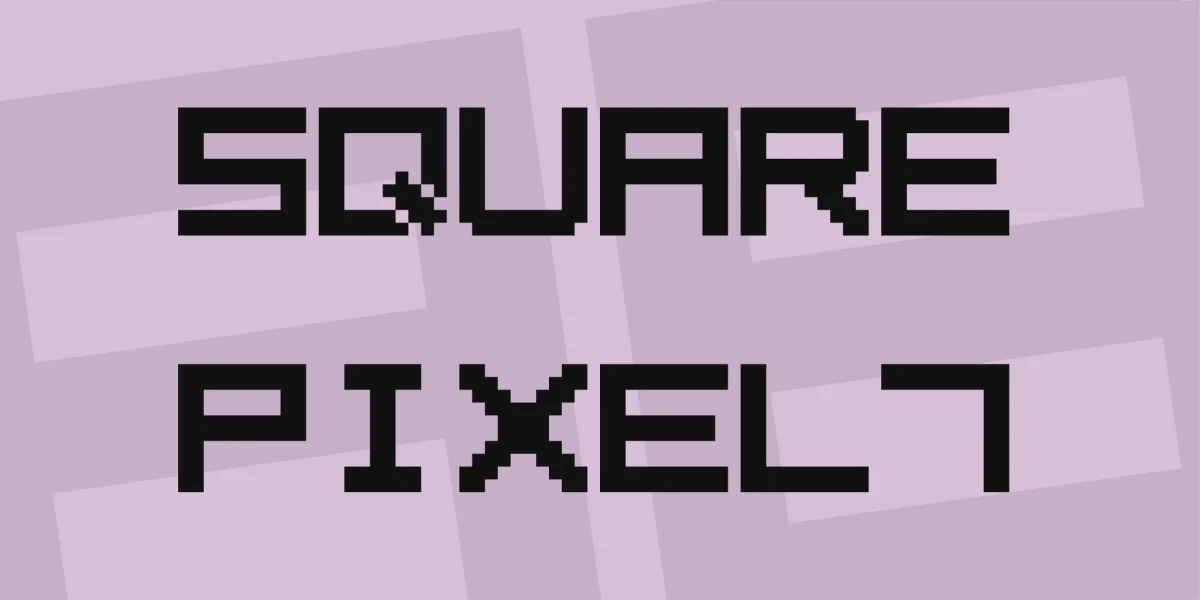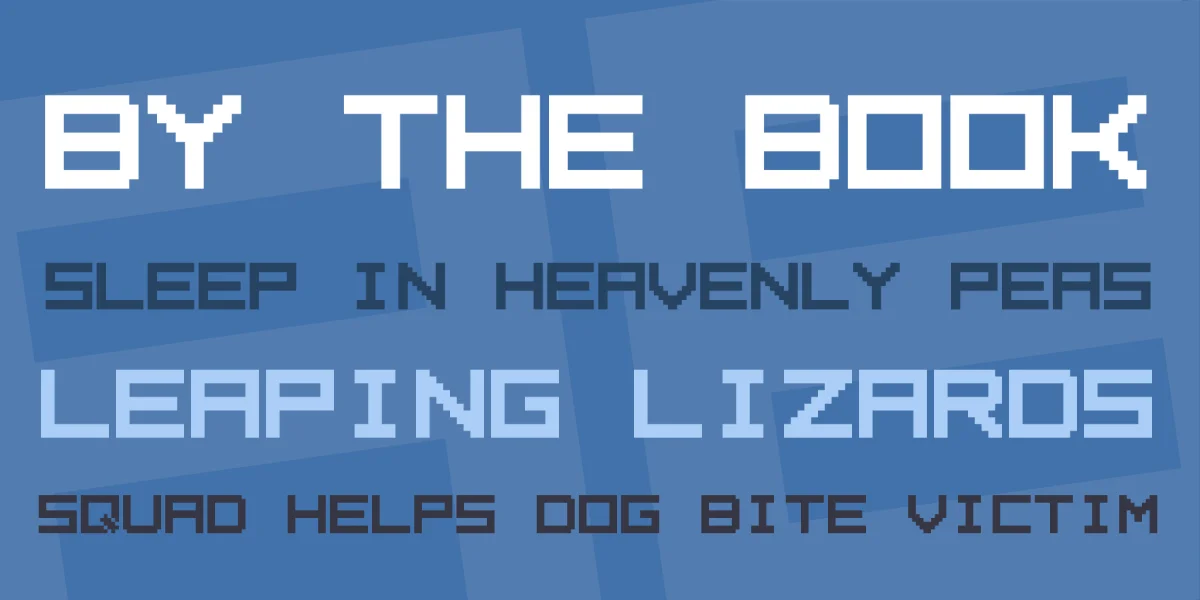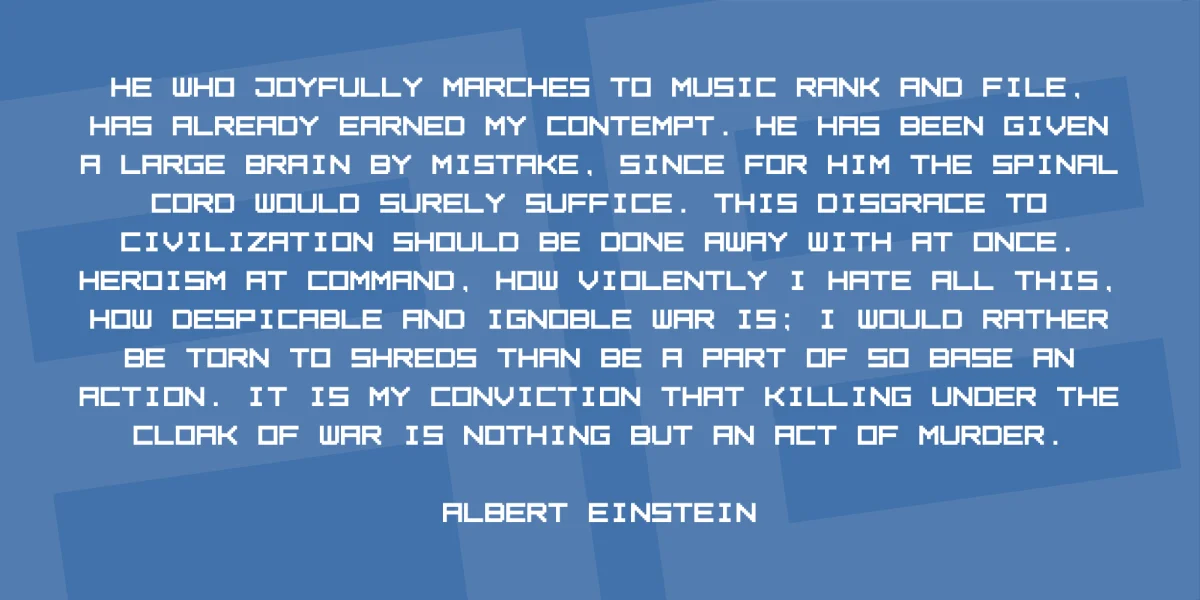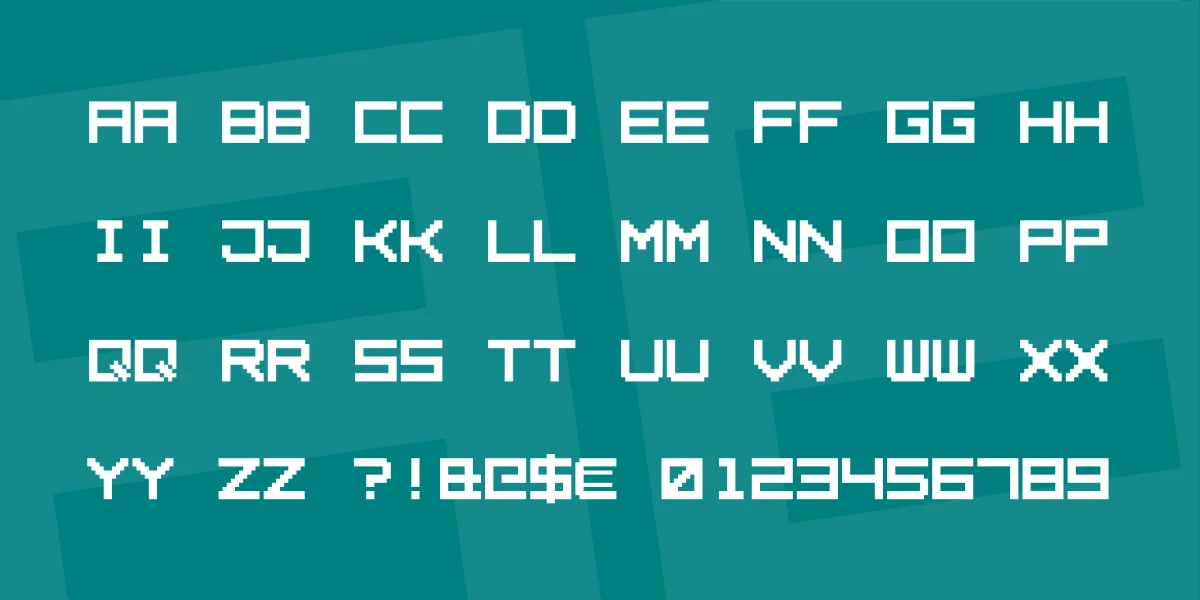
Original square pixel font. Native size is 15 points. Cyrillic code page is supported. The font Square Pixel7 is freeware for home use only, freeware software (credit needed) and for your education process. Use this link to buy the license. Please enter font name in web form.